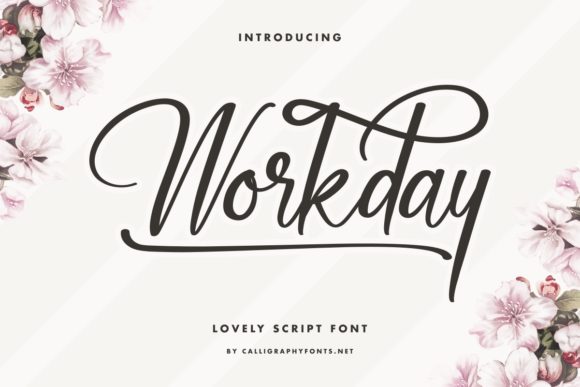
Unleash the Enchanting Charm of Handwritten Elegance with Workday Font
Journey into a world of captivating stories, where love knows no bounds and romance ignites the heart. Let your imagination soar with Workday Font, a mesmerizing handwritten masterpiece that will transport your readers to a realm of literary enchantment.
Workday Font: Where Romance and Beauty Intertwine
Step into a world where words dance with grace and emotions flow like a river. Workday Font is not just a collection of letters; it's a gateway to a world where love stories come alive. Its elegant curves and graceful strokes evoke a sense of nostalgia and timeless elegance.
Capture the Essence of Romance with Every Word
Feel the warmth of a lover's embrace as your words take shape in the alluring embrace of Workday Font. Its sweeping strokes and delicate flourishes add a touch of intrigue to your narrative, creating an atmosphere where passion and desire intertwine.
Ignite the Flames of Passion with Every Stroke
With Workday Font, every word becomes a brushstroke, painting a vivid tapestry of emotions. Its unique design captures the essence of romance, leaving your readers breathless as they delve into the depths of your story.
Elevate Your Storytelling to New Heights
Workday Font is more than just a font; it's a storytelling tool that elevates your words to new heights. Its intricate details and subtle nuances add depth and dimension to your characters, making them leap off the page and into the hearts of your readers.
Experience the Magic of Workday Font Today